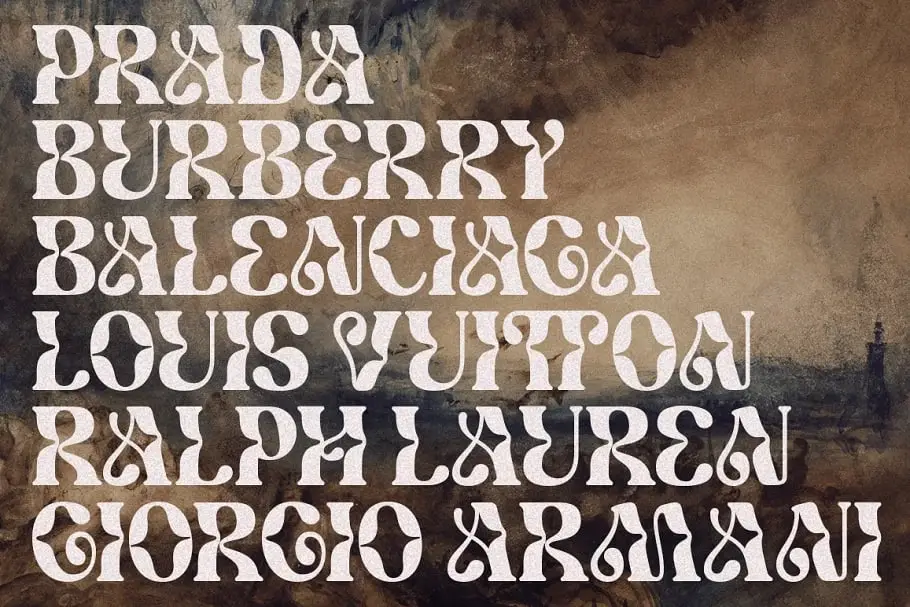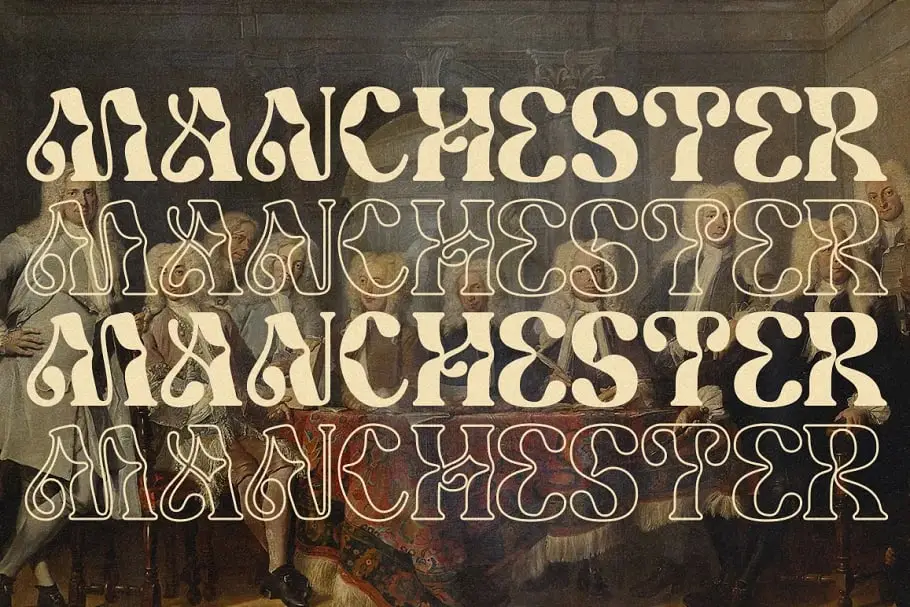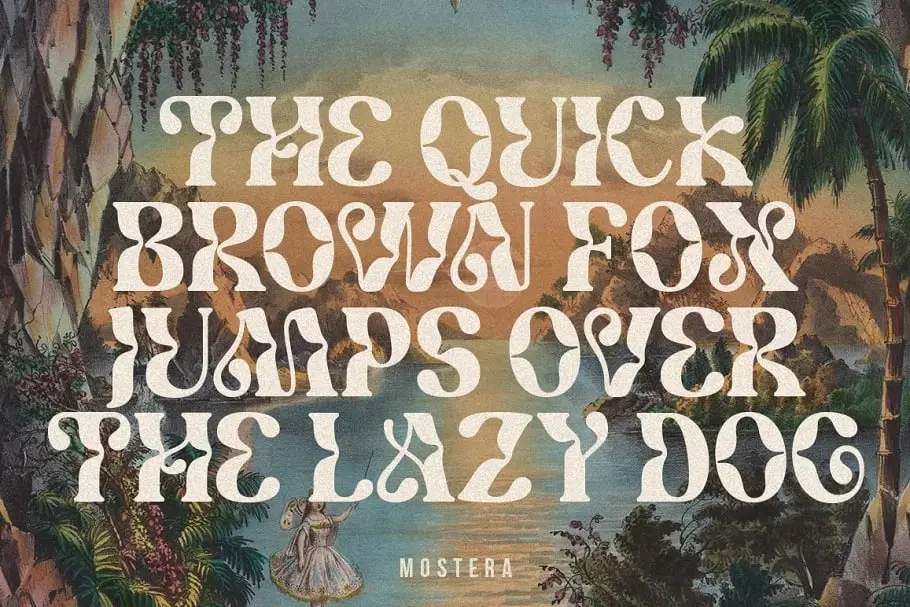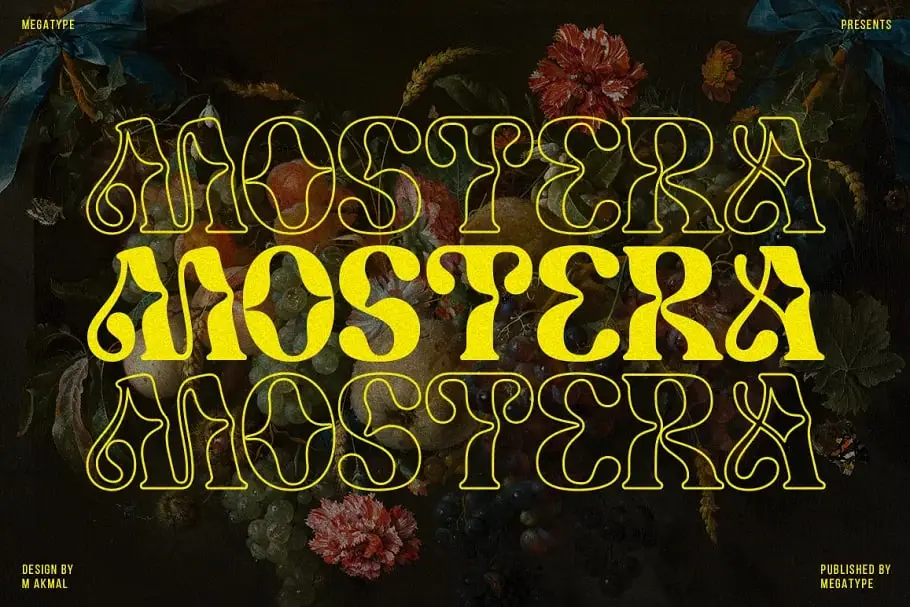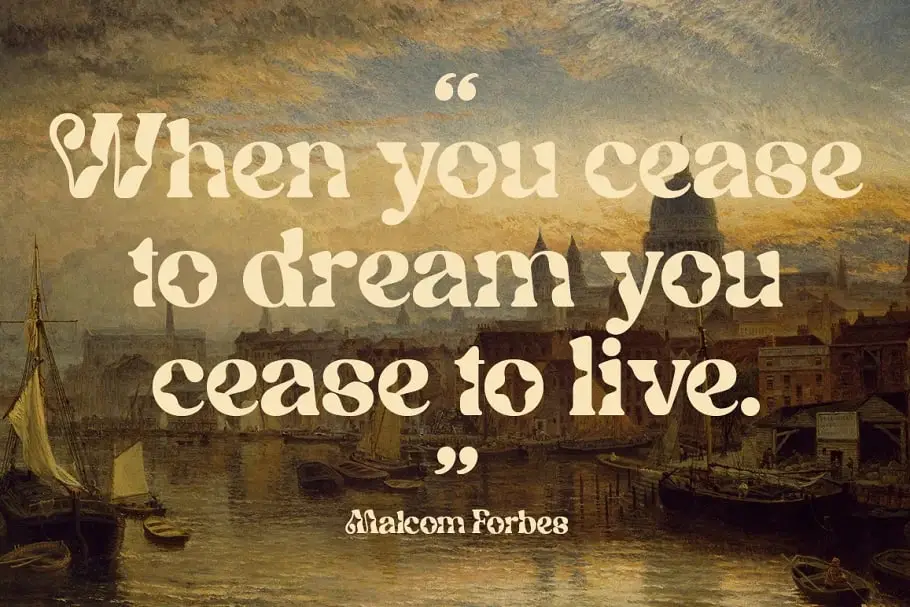
Mostera Font
The Mostera Font is a beautifully crafted typeface that combines elegance with modern design. Ideal for a variety of applications, this font is perfect for branding, logos, web design, and print materials.
• Great for creating eye-catching logos and branding materials
• Perfect for website headers and UI elements
• Use in print projects like brochures and business cards